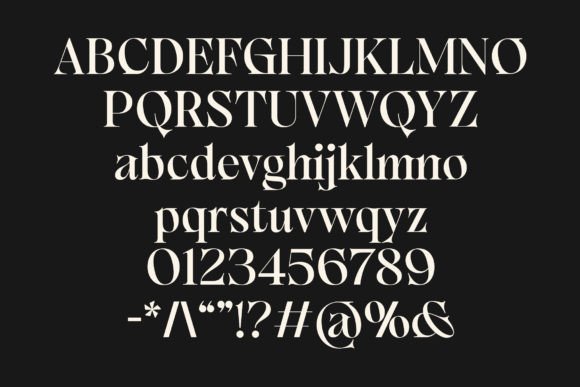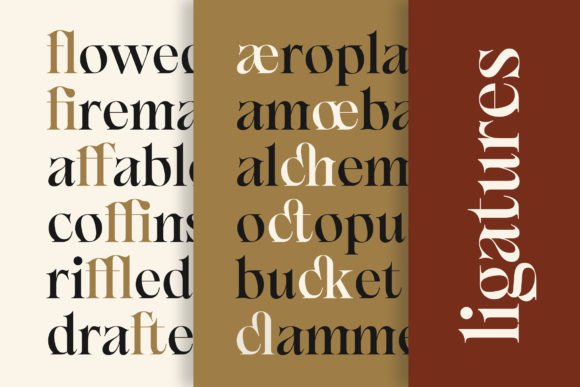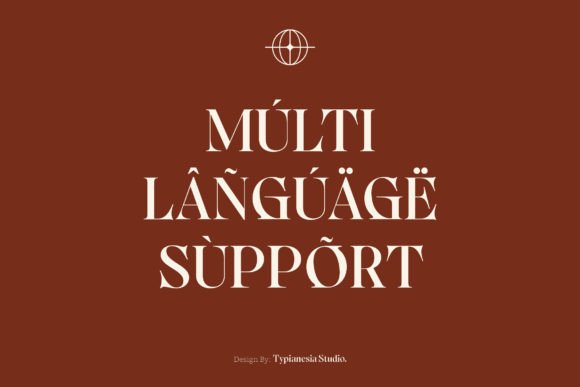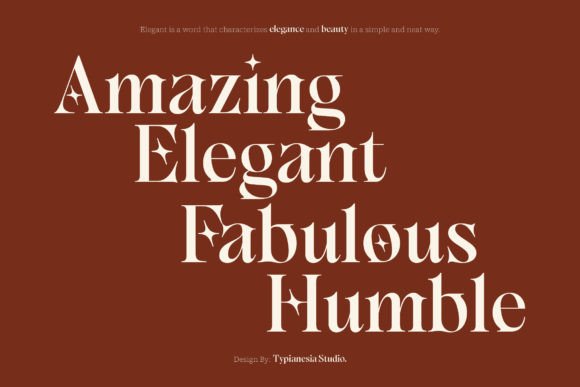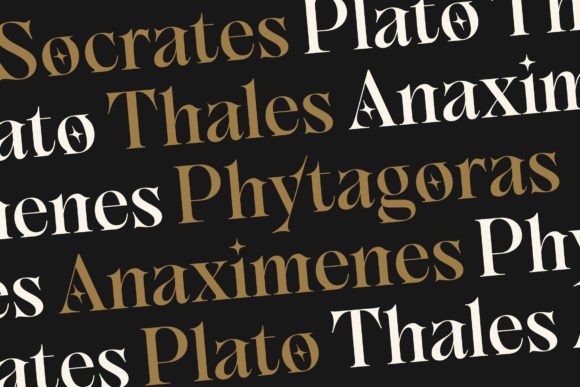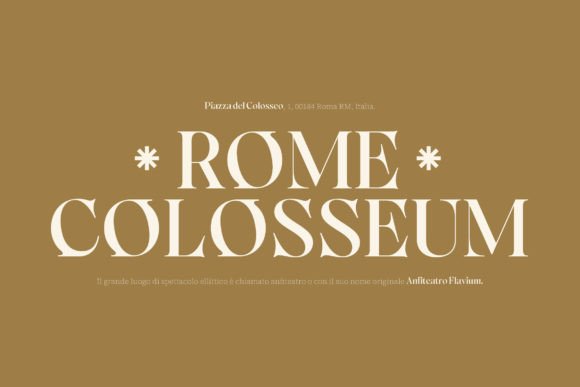
Game & Reality Font – Free Download
Introduction to Game & Reality Font
A Fusion of Elegance and Fantasy Serif – Magical Elegance and Enchantment in Every Creative Project Game & Reality is a sophisticated Elegant Fantasy Serif font designed to bring a touch of enchantment to your creative projects.
| 👤 Author | Typia Nesia |
Ideal for a wide range of applications, from branding and packaging to editorial design and fantasy-themed projects, such as Fantasy Book Covers and Publishing, Tabletop Games and Accessories, Virtual Reality (VR) Gaming Platforms, Fantasy-themed Fashion and Accessories Game & Reality adds an elegant and mystical flair to your typography.
Key Features of Game & Reality Font
Why Choose Game & Reality Font?